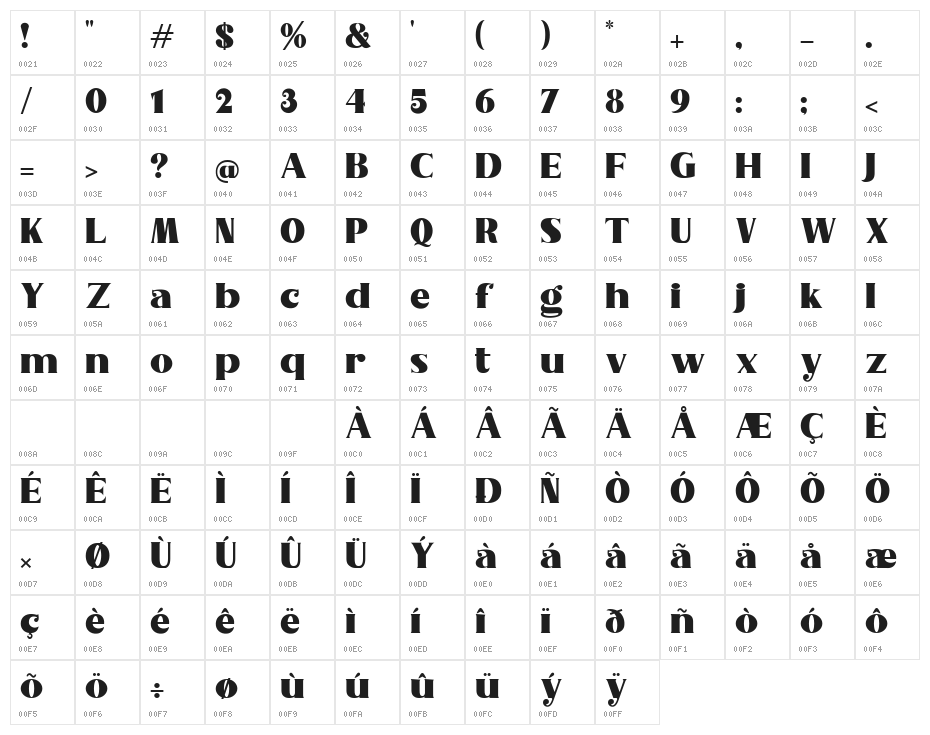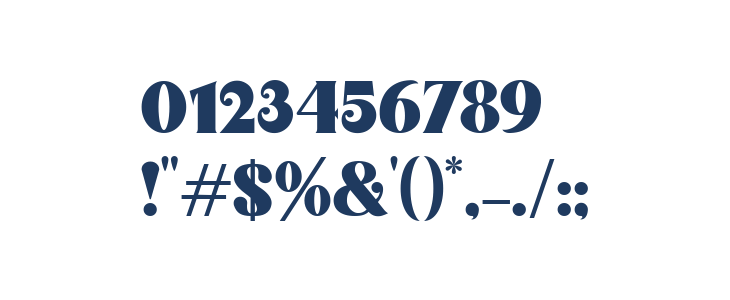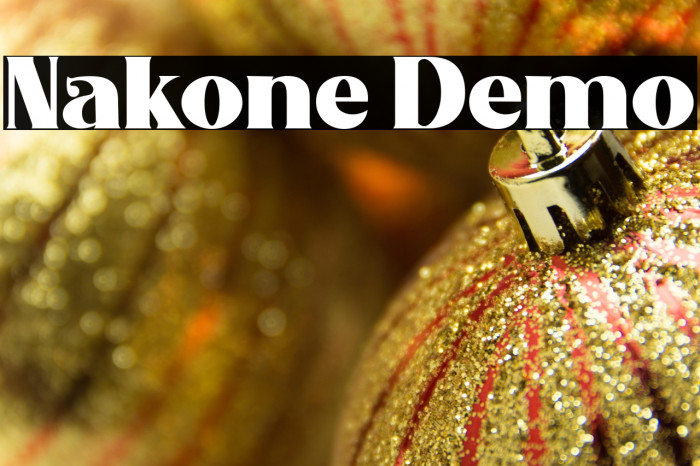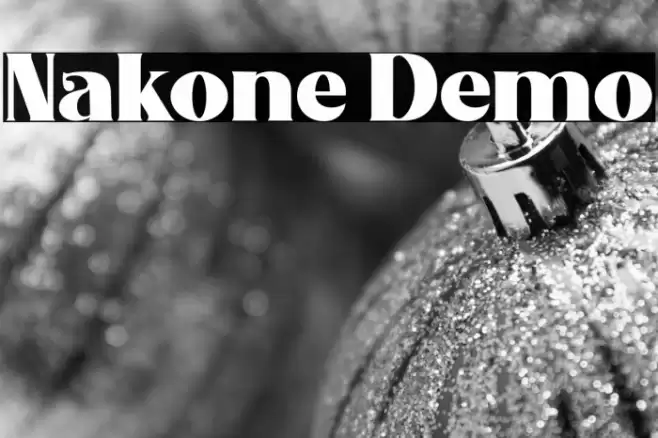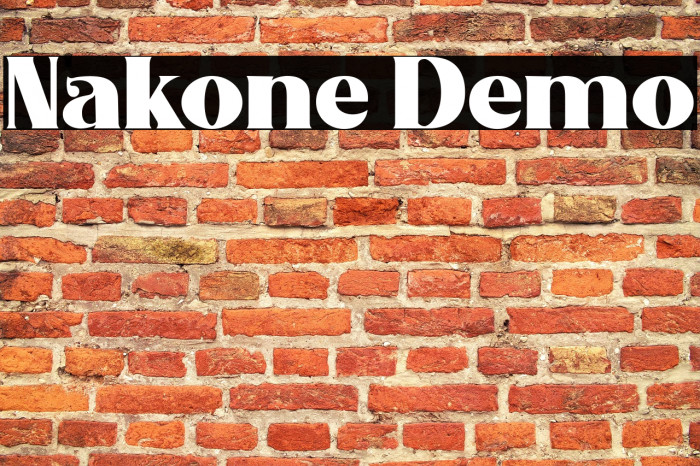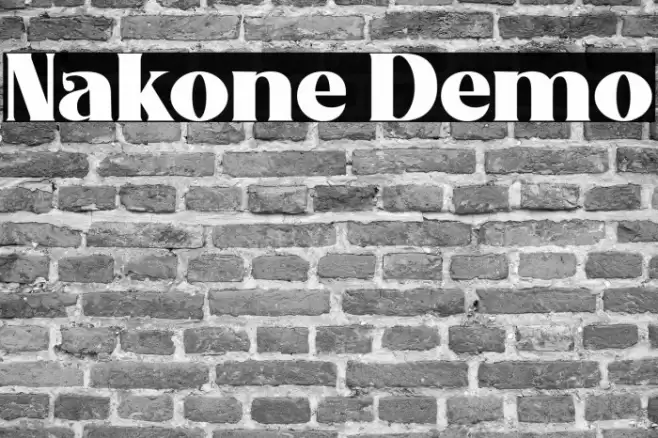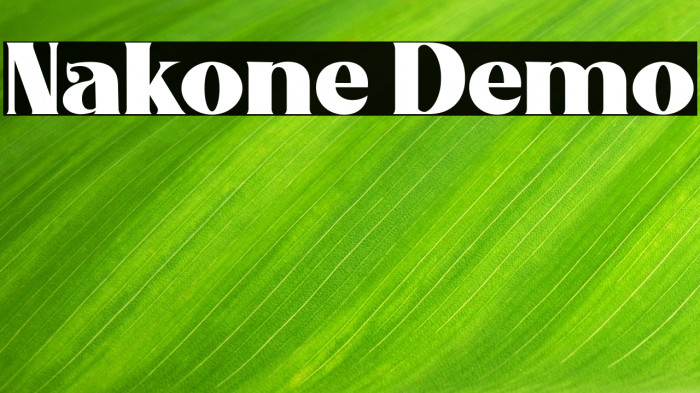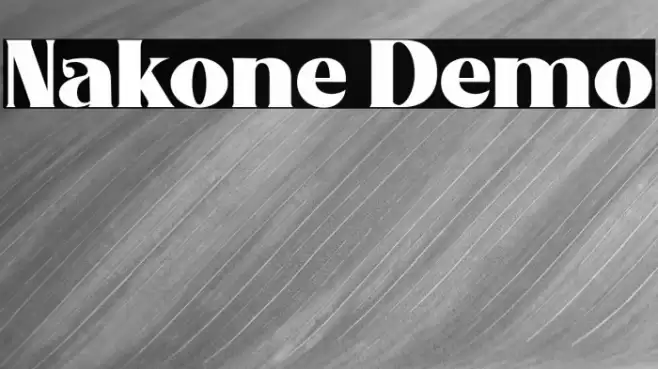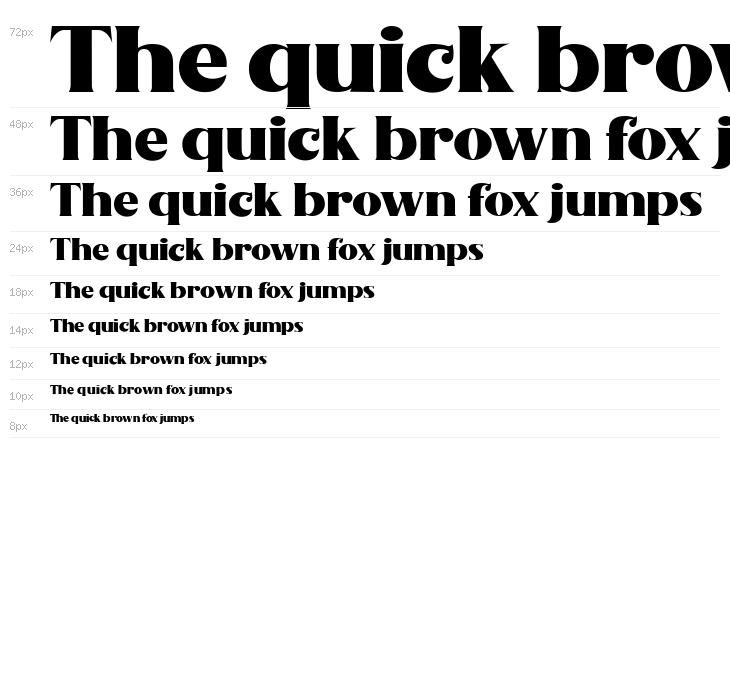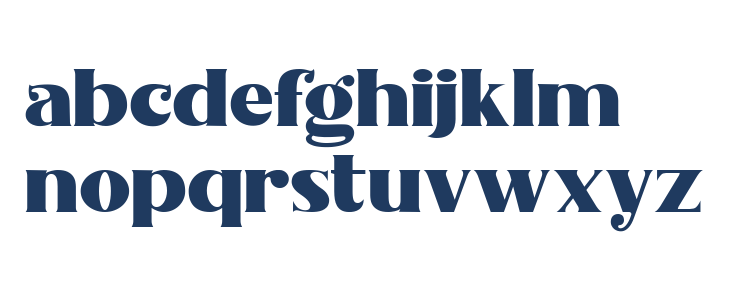
Nakone Demo Font
This font features a bold and striking design with high contrast between thick and thin strokes, giving it a dramatic and impactful appearance. The uppercase letters are particularly wide and commanding, while the lowercase letters maintain a consistent boldness that complements the overall style. The numerals are equally bold, ensuring they stand out in any context. Special characters are designed with the same attention to detail, making them suitable for a variety of uses. The font's strong presence makes it ideal for headlines and titles where emphasis is needed.